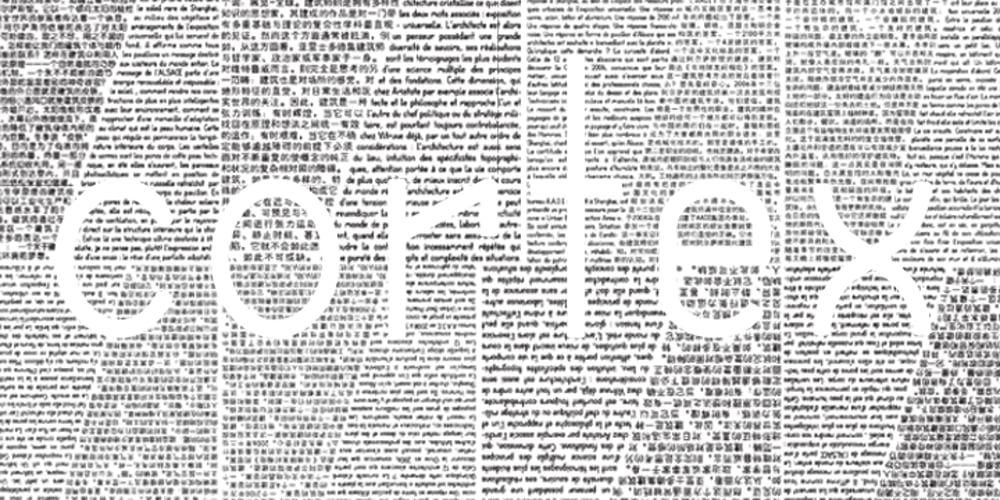
Cortex
Cortex font
Cortex Font Family was designed by Florent Courtaigne and published by Cubo Fonts. Cortex contains 4 styles and family package options. Cortex was designed for Shanghai Word Expo 2010 / A.A.D.I Pavilion corporate identity: signage, corporate communication, graphic design (a 120 pages monography), promotional items, etc. It was inspired by the pavilion “slanted” architectural concept, and had to fit the famous chinese “YOUYUAN” typeface as well. This is a both very clear and dynamic typeface.